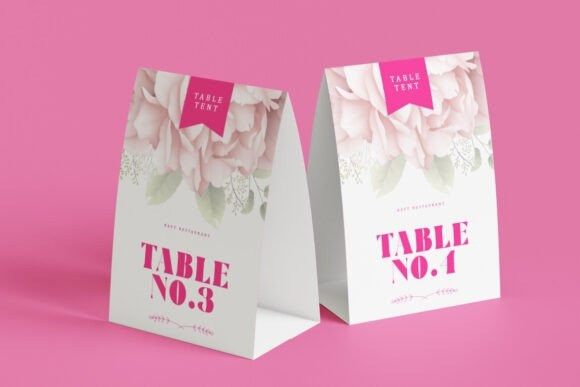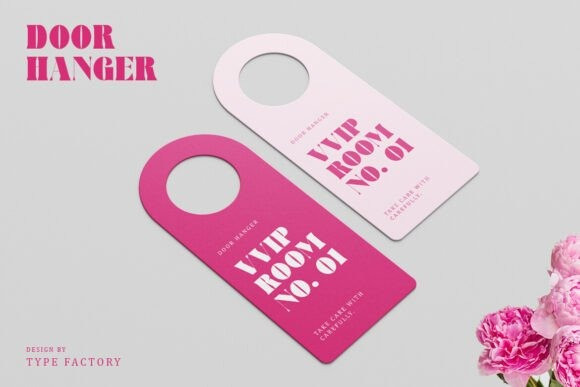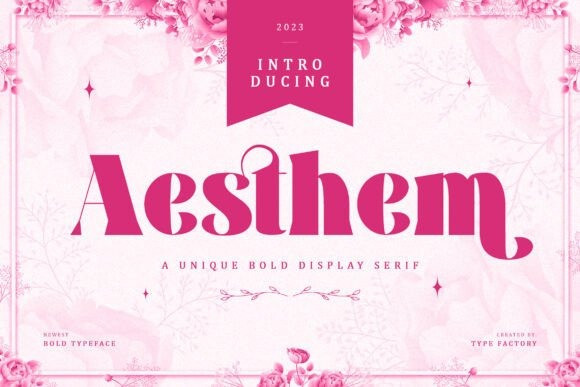
Aesthem Font
Aesthem Font is a unique bold display serif typeface that brings elegance and strength together in perfect harmony. With its high-contrast strokes, sharp serifs, and artistic curves, Aesthem is designed to make a bold statement in logos, headlines, posters, packaging, and editorial layouts. Its refined yet expressive design gives your typography a luxurious, fashion-forward vibe that stands out in both print and digital media. Aesthem is perfect for designers who want a powerful serif with a touch of modern sophistication.